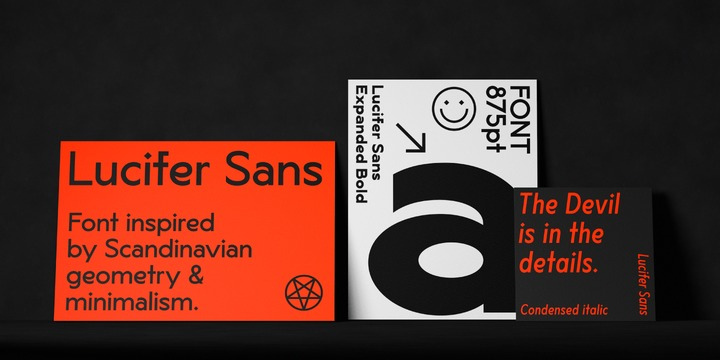
Lucifer Sans Font
This dramatic typeface is perfect for horror entertainment, dark gaming brands, gothic merchandise, metal music venues, thriller book covers, Halloween campaigns, dark fantasy projects, mysterious branding, and atmospheric design applications.
What makes this font exciting is its dark allure combined with sophisticated edge, offering designers a commanding typeface that captures supernatural intensity while delivering gothic elegance and dramatic visual sophistication.
The Lucifer Sans font family includes light, regular, medium, bold, black, and shadow variations, providing complete dark design solutions for creating powerful mysterious visual identities.
Whether you're developing dark entertainment brands or crafting atmospheric design experiences, Lucifer Sans Font Free Download brings exceptional gothic atmosphere and dramatic authenticity to every application. This commanding typeface combines dark typography traditions with contemporary gothic design, creating letterforms that evoke mystery and supernatural power. The font's dramatic construction and atmosphere-ready details make it perfect for brands seeking immediate dark recognition.
Lucifer Sans Font features carefully engineered gothic styling with authentic dark character that conveys genuine atmospheric expertise. Each character has been designed with dramatic proportions and mysterious elements that enhance the sophisticated aesthetic. The font's gothic qualities make it particularly effective for entertainment brands and atmospheric applications.
Professional designers choose Lucifer Sans Font for projects requiring authentic gothic credibility and dark atmosphere. Its mysterious heritage makes it exceptionally well-suited for entertainment companies, gothic venues, and dark lifestyle brands. The font's versatile dramatic variations allow designers to control the gothic intensity, from subtle dark elegance to full supernatural celebration.
The complete Lucifer Sans Font package offers extensive gothic ornaments and dark decorative elements that enhance the atmospheric aesthetic. Advanced shadow features allow designers to create complex gothic effects with multiple mysterious-inspired options. This comprehensive dark toolkit ensures designers have everything needed to create authentic atmospheric communications that celebrate the compelling power of gothic sophistication and dramatic design excellence.